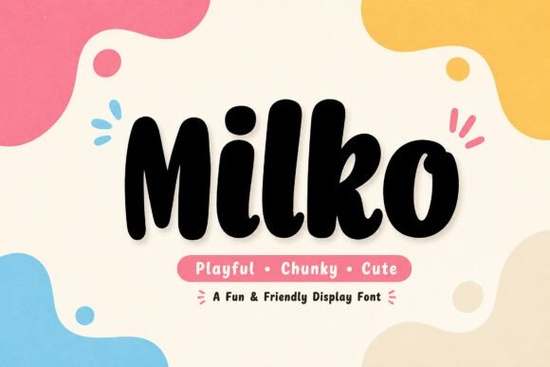
Looking for a font that adds a touch of sweetness and playfulness to your designs? The Milko Font is a standout choice for anyone working on kids branding, bakery packaging, café logos, or creative projects that need a friendly, bold look. With its chunky rounded letters and hand-drawn feel, Milko brings warmth and personality to any visual work.
The Milko Font is ideal for designers who want to convey a sense of fun and approachability. Its smooth curves and thick letterforms make it perfect for headlines, social media graphics, and product packaging. Whether you're designing for a dessert brand, children's toys, or a café, Milko adds a soft, energetic vibe that catches the eye and resonates with your audience.
What Makes Milko Stand Out?
Milko is more than just a pretty font it’s designed with practicality in mind. It includes uppercase and lowercase letters, numbers, punctuation, ligatures, and stylistic alternates, making it versatile for different design needs. The font is PUA encoded, which means you can access all characters without needing special software. This makes it easy to use across various platforms and design tools.
One of the key features of Milko is its rounded, chunky letterforms. These shapes give the font a friendly and approachable look, perfect for brands that want to feel warm and inviting. The hand-drawn texture adds an extra layer of character, making your designs feel more personal and authentic.
Who Can Benefit from Using Milko?
Designers, crafters, print-on-demand sellers, small businesses, and creative hobbyists will find Milko to be a valuable addition to their toolkit. It works well for a wide range of projects, including t-shirt designs, sticker artwork, product labels, and social media posts. Its bold style ensures that your message stands out, while its soft curves keep the overall look gentle and appealing.
For small businesses, especially those in the food or children's product industries, Milko can help create a cohesive and memorable brand identity. It’s also great for personal projects, such as handmade cards, custom illustrations, or DIY decorations. The font’s versatility makes it suitable for both digital and print formats.
How to Use Milko Effectively
To get the most out of Milko, consider pairing it with simpler fonts for contrast. For example, using a clean sans-serif font for body text while reserving Milko for headlines can create a balanced and professional look. Experimenting with different colors and layouts can also help highlight the font’s unique qualities.
When working with Milko, keep in mind that its bold and rounded style works best in larger sizes. This allows the details of the letters to shine through and ensures readability. Avoid using it for long blocks of text, as this can make the design feel overwhelming or hard to read.
Whether you're starting a new project or looking to refresh your existing designs, Milko offers a fresh and fun way to express your creative vision. Its combination of playfulness and professionalism makes it a go-to choice for many designers.
- Try Milko on different color backgrounds to see how it changes the mood of your design.
- Pair it with a simple, clean font for a balanced and professional look.
- Use it for headlines and titles to draw attention and add personality.
- Experiment with different sizes and spacing to find the best fit for your project.